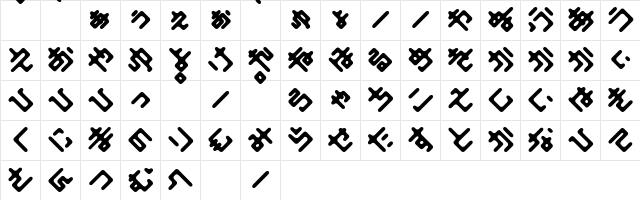
Eleki Bold Font Preview
Eleki Bold
Eleki Bold Font Details
Design Context for Eleki� Typeface
Eleki� offers clean, dependable letterforms without strong stylistic allegiance, making it a practical choice for designers who need flexibility. Its bold stroke weight gives it real presence on the page.